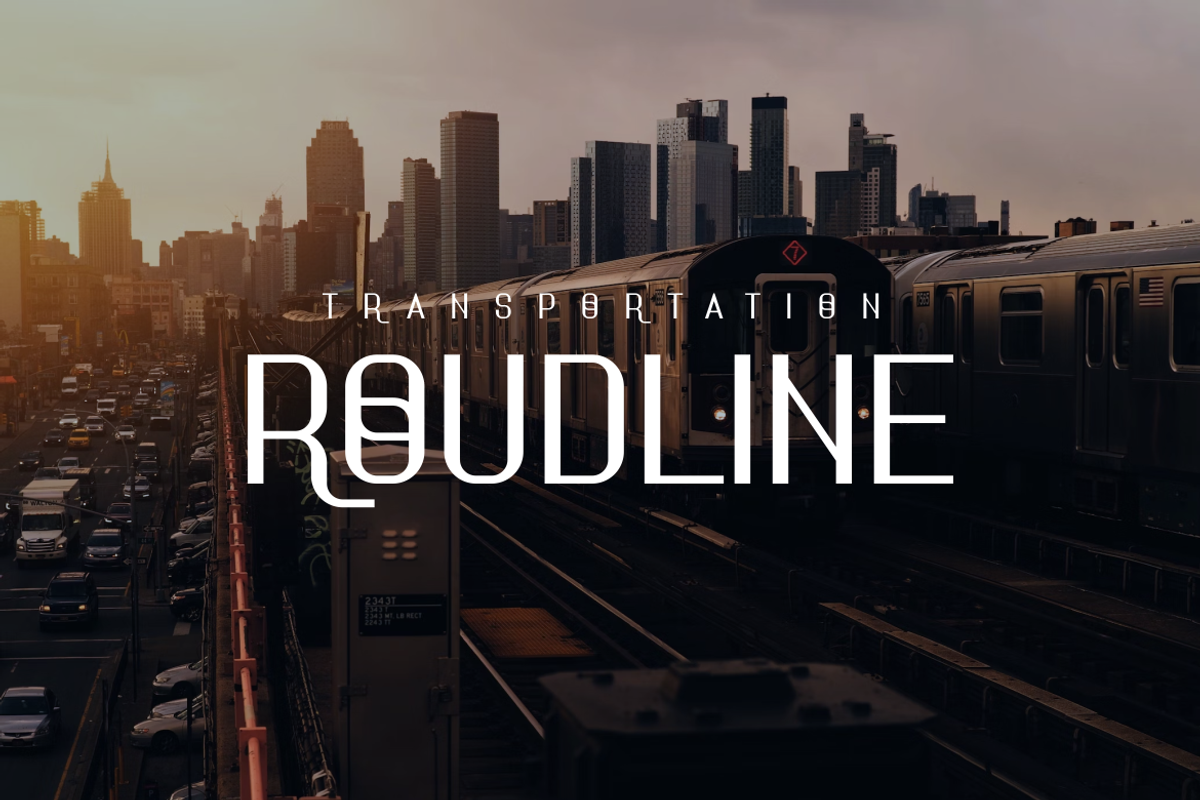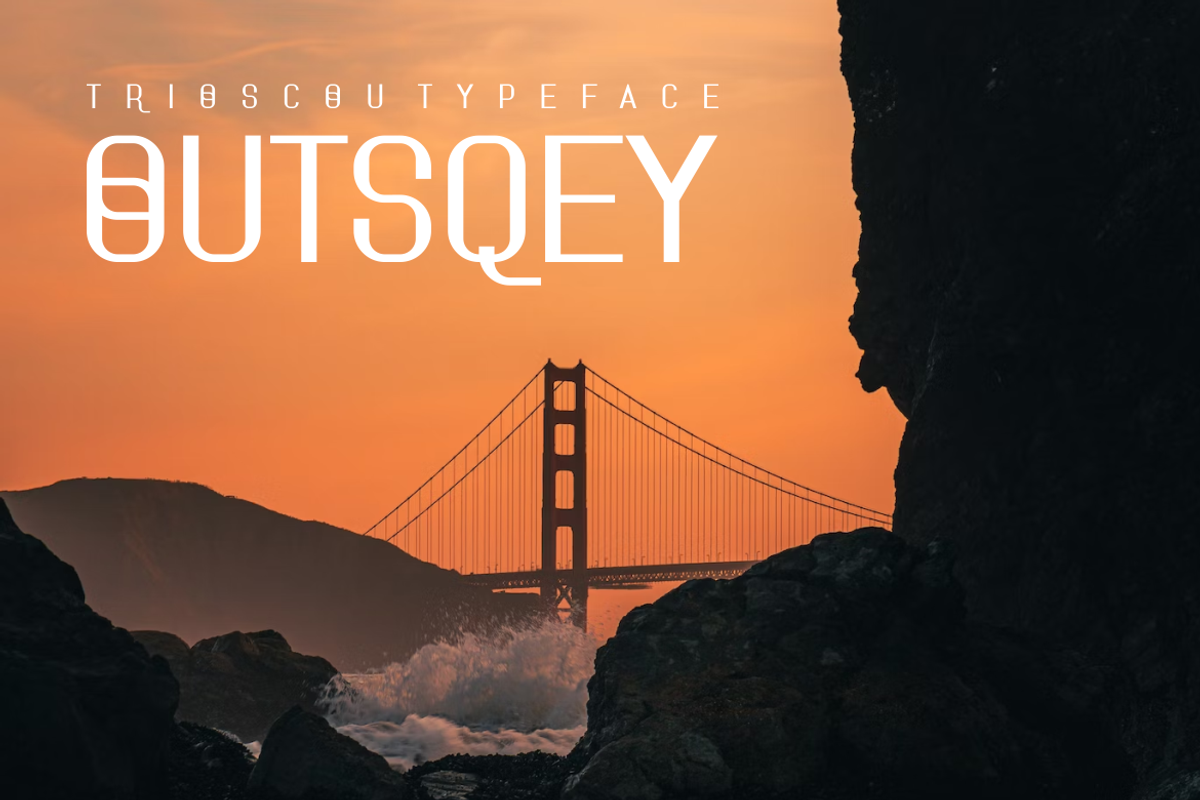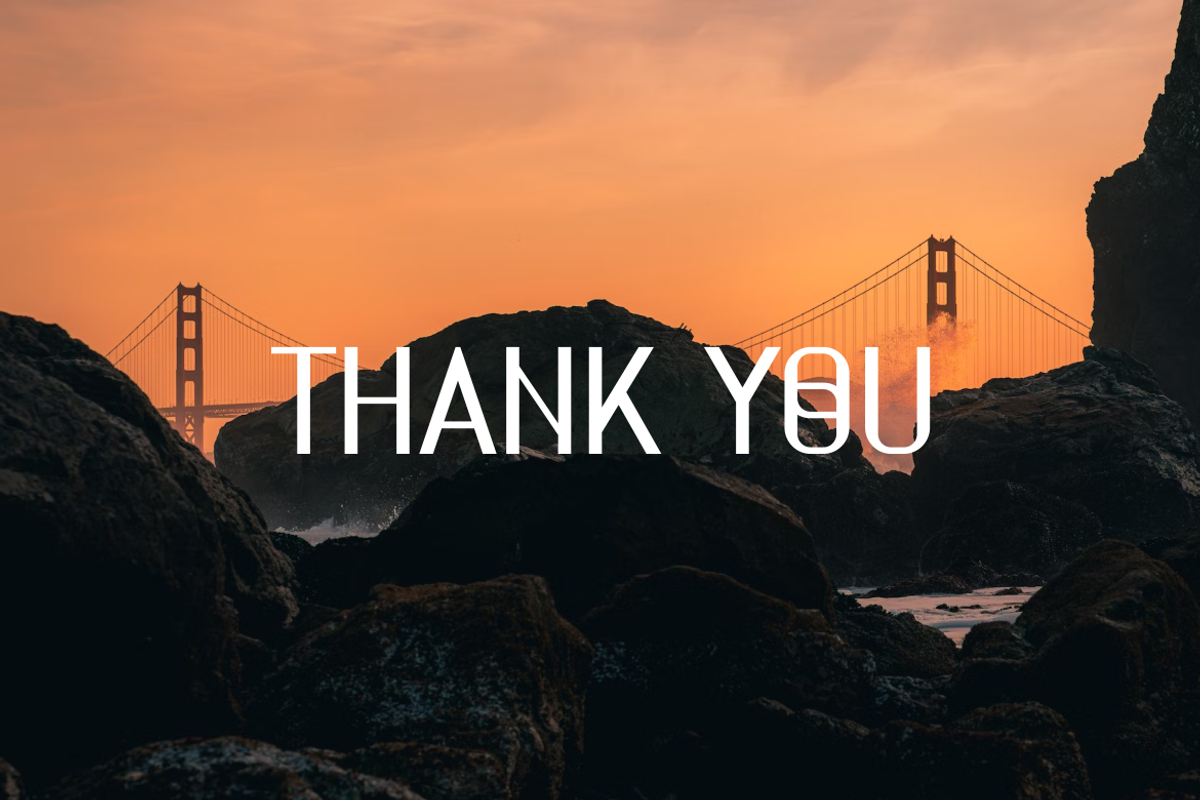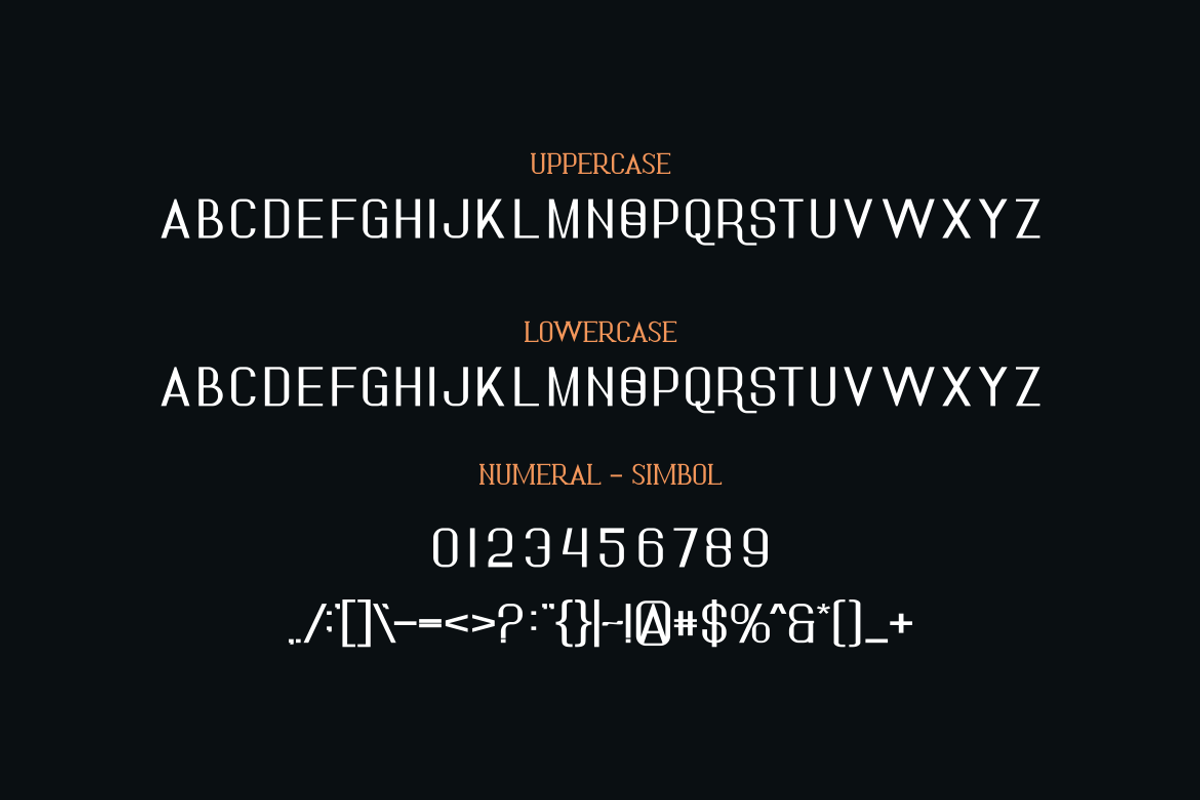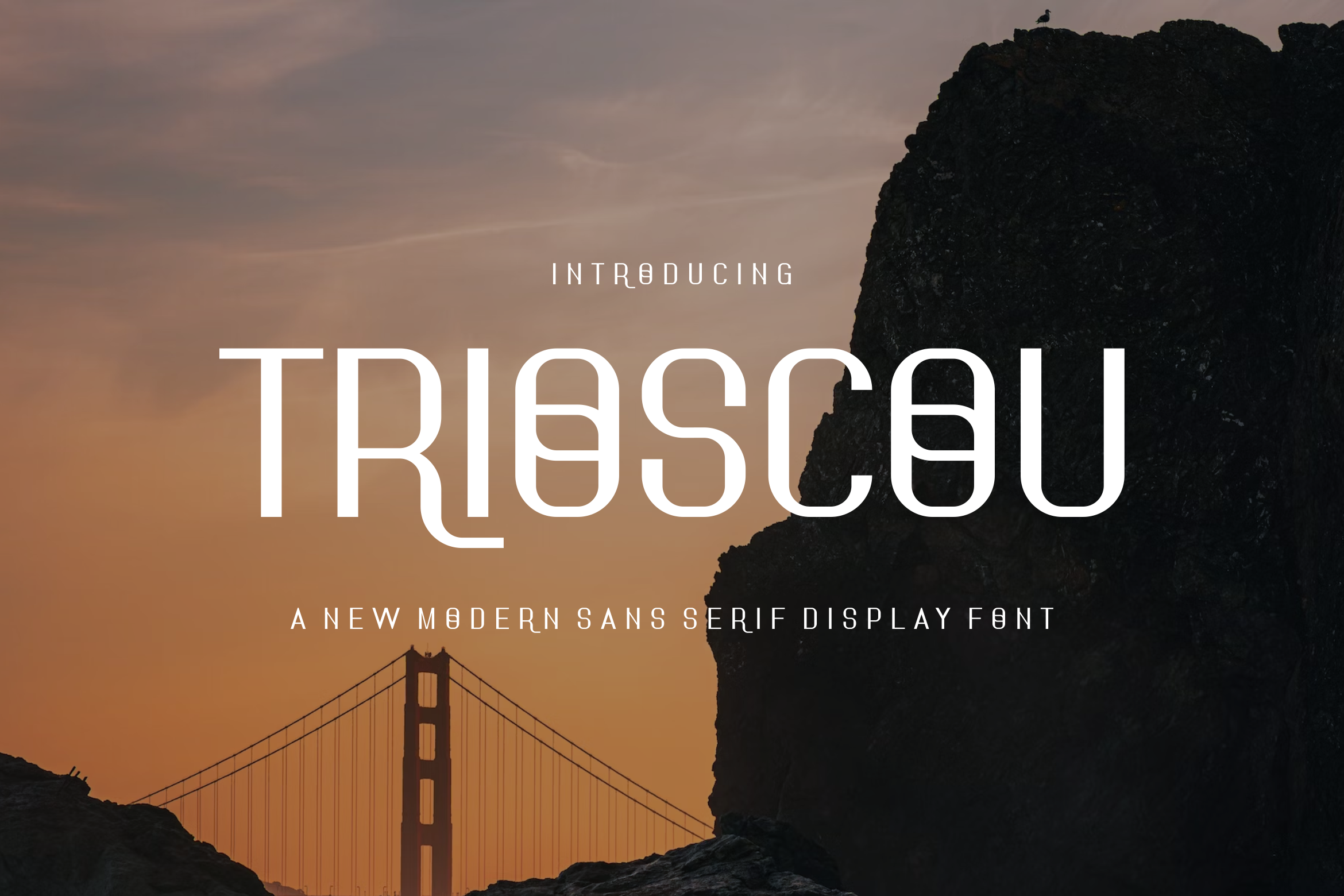
Trioscou - Font
- Modern Font is a bold and authentic display font. The font is suitable for any branding project like logo, t-shirt printing,, and many more. outstanding in a wide range of contexts.